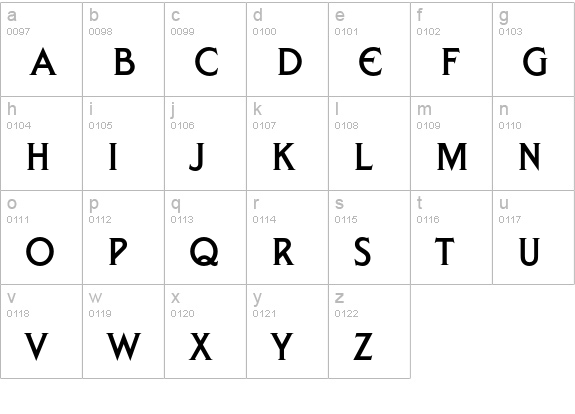
LibertyEF Font Details
LibertyEF font is a stunning display typeface that exudes elegance and sophistication. With its sleek lines and modern design, LibertyEF is perfect for adding a touch of class to any project. This versatile font is ideal for a variety of design applications, from branding to editorial design. What sets LibertyEF apart is not only its striking aesthetic appeal but also the fact that it is completely free to download. That's right, you can enhance your designs with this beautiful font at no cost. Simply visit FontsMarket.com to access the LibertyEF font and elevate your creative projects to new heights. Don't miss out on this opportunity to add a touch of luxury to your designs with LibertyEF.